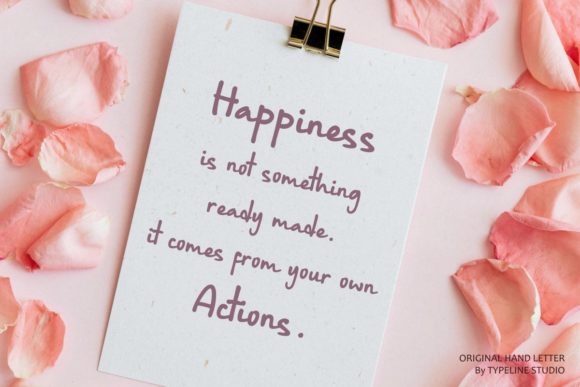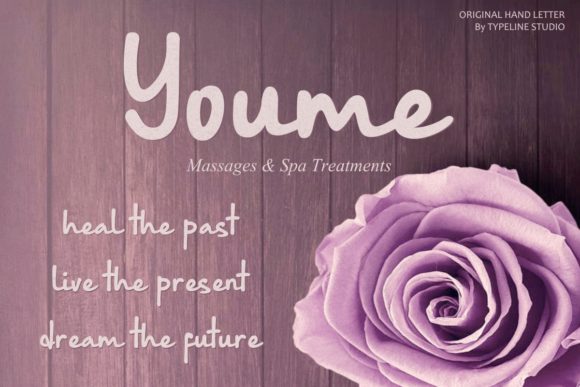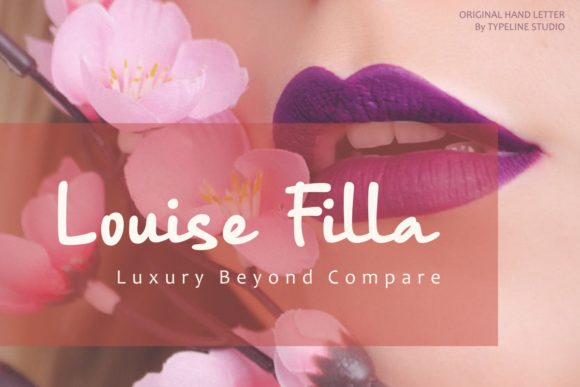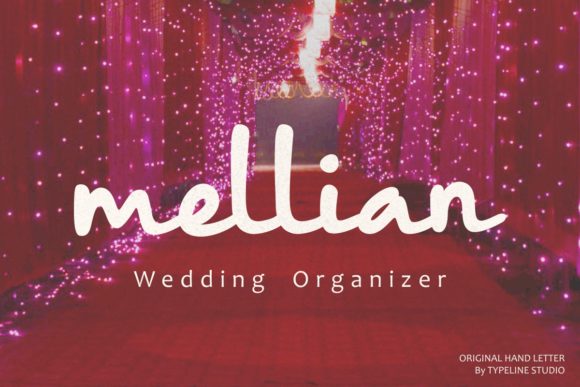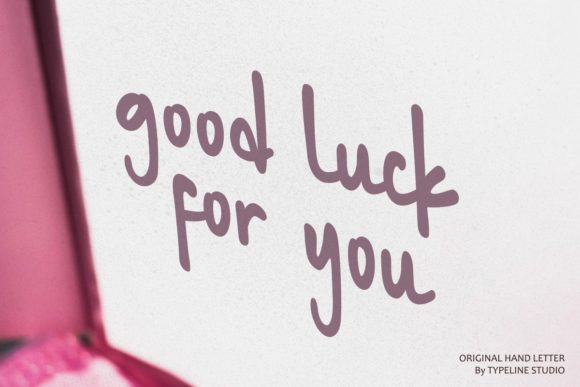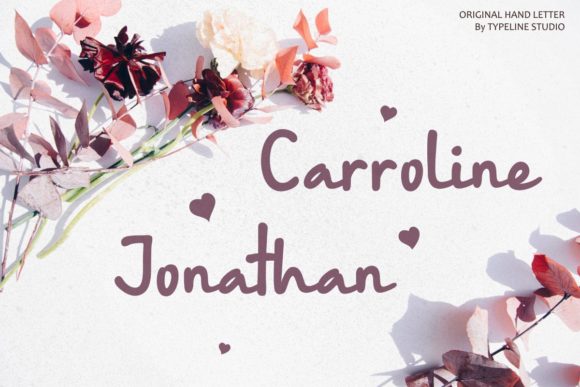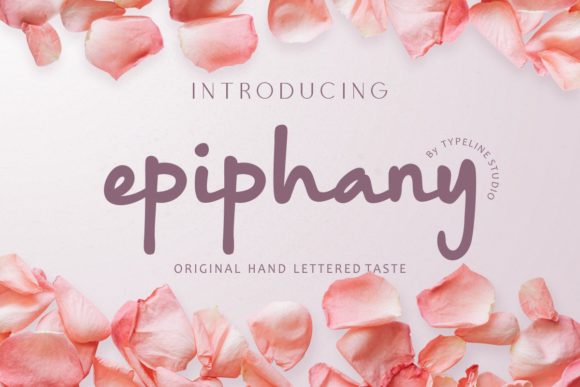
Introducing Epiphany Font: A Delicate and Sweet Paint Brushed Handwritten Font
Are you tired of using the same old fonts in your design projects? Look no further! Epiphany Font is a beautiful, delicate, and sweet paint brushed handwritten font that is sure to add a touch of elegance and sophistication to your work. Its distinct and well-rounded letters make it a masterpiece that will set your designs apart from the rest.
What Makes Epiphany Font Special?
Epiphany Font is a unique and eye-catching font that is perfect for designers and crafters who want to add a personal touch to their projects. Its delicate and sweet paint brushed handwritten style gives it a warm and inviting feel that is sure to capture the attention of your audience. Whether you’re working on a branding project, a wedding invitation, or a DIY craft, Epiphany Font is the perfect choice.
Key Features of Epiphany Font
- Delicate and Sweet Design: Epiphany Font features a delicate and sweet paint brushed handwritten design that is perfect for adding a touch of elegance to your projects.
- Distinct and Well-Rounded Letters: The font’s distinct and well-rounded letters make it easy to read and give it a unique and eye-catching style.
- Perfect for Designers and Crafters: Epiphany Font is perfect for designers and crafters who want to add a personal touch to their projects.
- Versatile and Easy to Use: The font is easy to use and can be used in a variety of design projects, from branding and advertising to wedding invitations and DIY crafts.
- Branding and Advertising: Use Epiphany Font to create eye-catching logos, business cards, and brochures that will help your brand stand out.
- Wedding Invitations: Add a touch of elegance to your wedding invitations with Epiphany Font.
- DIY Crafts: Use Epiphany Font to add a personal touch to your DIY crafts, such as handmade cards and gift tags.
Why Choose Epiphany Font?
There are many fonts to choose from, but Epiphany Font stands out from the rest. Here are a few reasons why:
- Unique and Eye-Catching Design: Epiphany Font features a unique and eye-catching design that will set your designs apart from the rest.
In conclusion, Epiphany Font is a beautiful and unique paint brushed handwritten font that is perfect for designers and crafters who want to add a personal touch to their projects. Its delicate and sweet design, distinct and well-rounded letters, and versatility make it a great choice for a variety of design projects. Whether you’re working on a branding project, a wedding invitation, or a DIY craft, Epiphany Font is sure to impress.